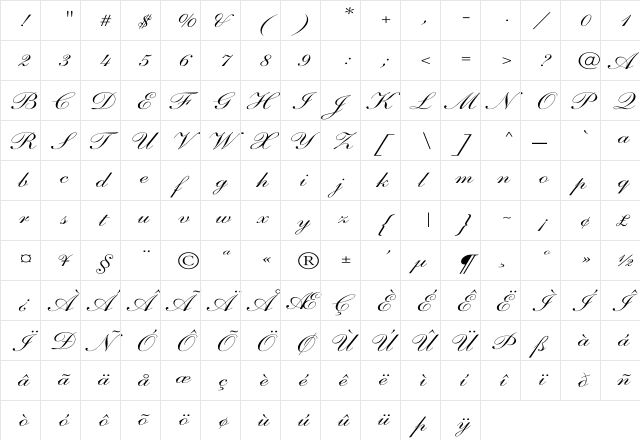
Shelley-AndanteScript Wd Regular
Design Context for Shelley-AndanteScript Wd Typeface
Shelley-AndanteScript Wd flows with the natural rhythm of handwritten lettering, making it ideal for designs that call for warmth and personal expression.
Font Pairing: Combine Shelley-AndanteScript Wd with a simple geometric sans for maximum contrast — the tension between flowing curves and clean structure is a classic typographic pairing.
Pro Tip: Use Shelley-AndanteScript Wd for short runs of text — names, titles, or taglines. Extended body copy in script faces tires the eye quickly.